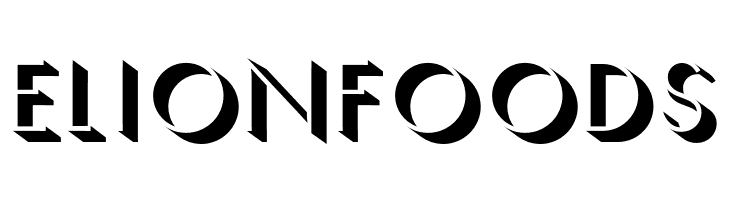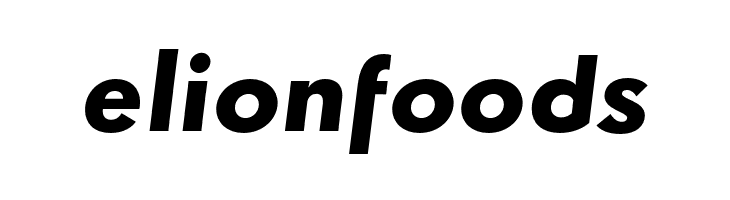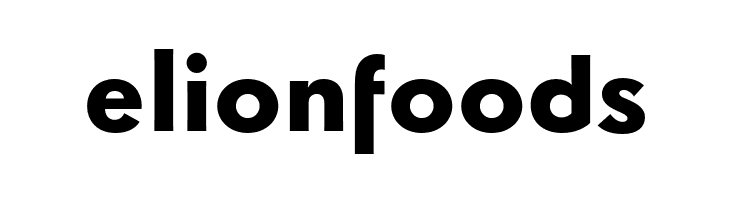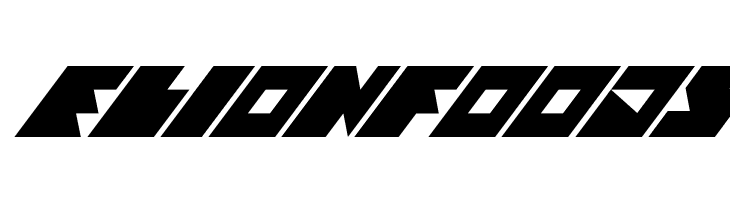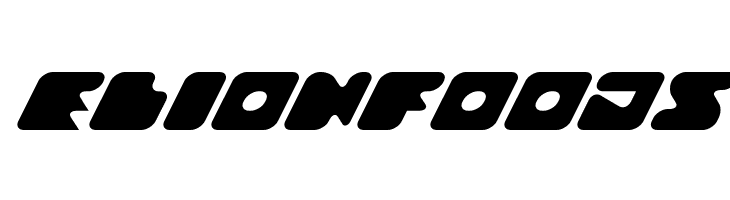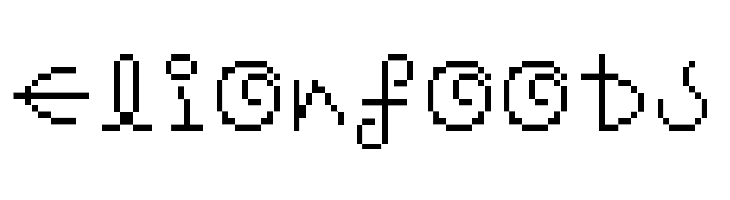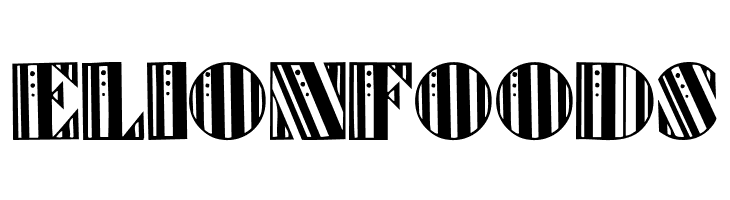
A bold, geometric font with a unique shadow effect for a three-dimensional look.
A bold, geometric sans-serif typeface with a modern and minimalistic design.
A bold, angular font with a futuristic and geometric design.
A bold, futuristic font with rounded edges and dynamic cutouts.
A pixelated, retro font with a playful and geometric design.
A bold, decorative font with retro and art deco influences.